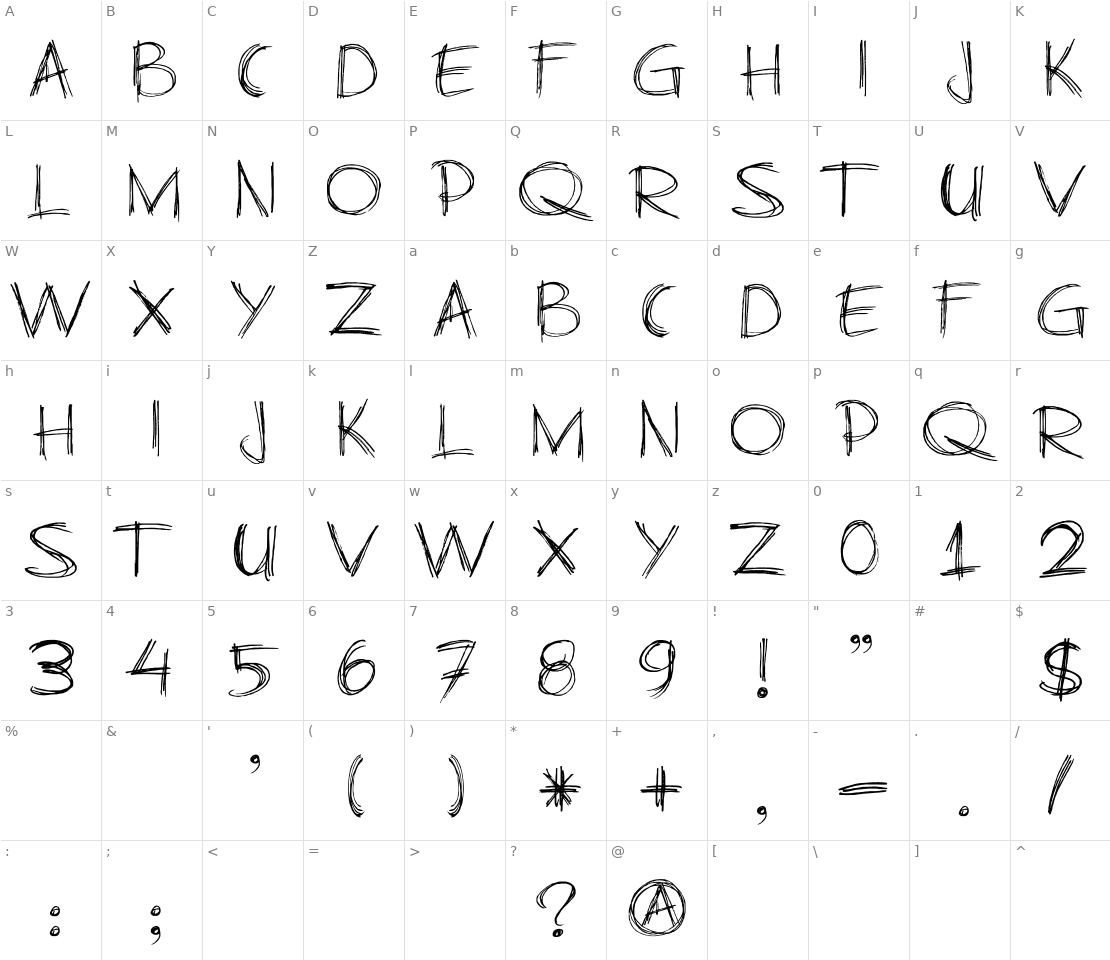
Business As Usual
Business As Usual is a scratchy, uppercase handwritten face from Hanoded that looks like it was scrawled in a hurry with a dull pencil on rough paper. The letterforms are deliberately uneven and distressed, with a raw, sketch-like quality that feels more like street art than stationery. Works best on posters, zines, and editorial layouts where you want type that pushes back against anything polished or corporate.